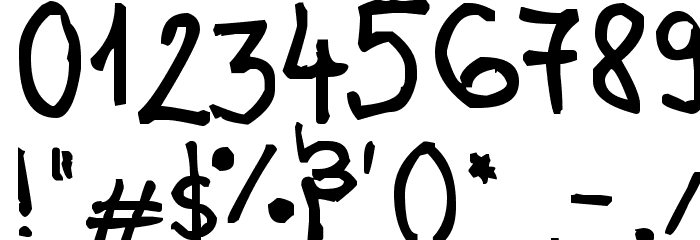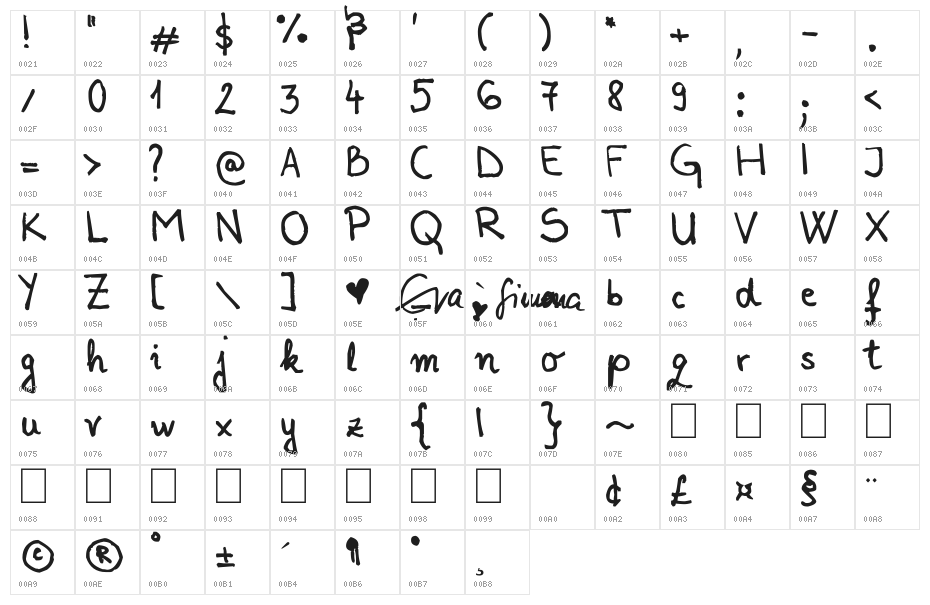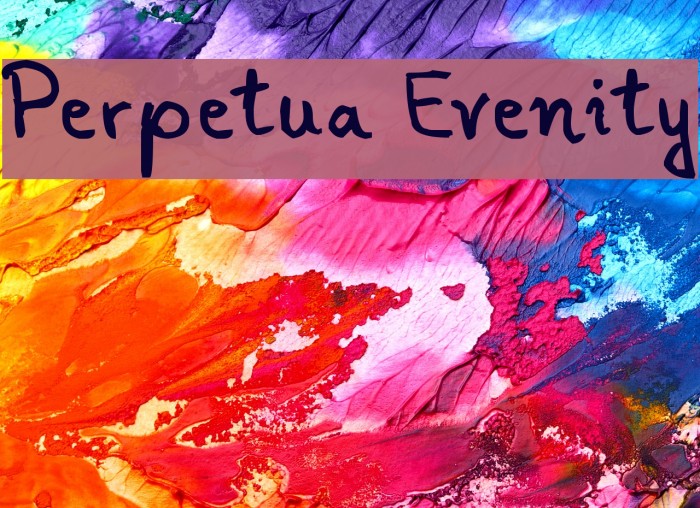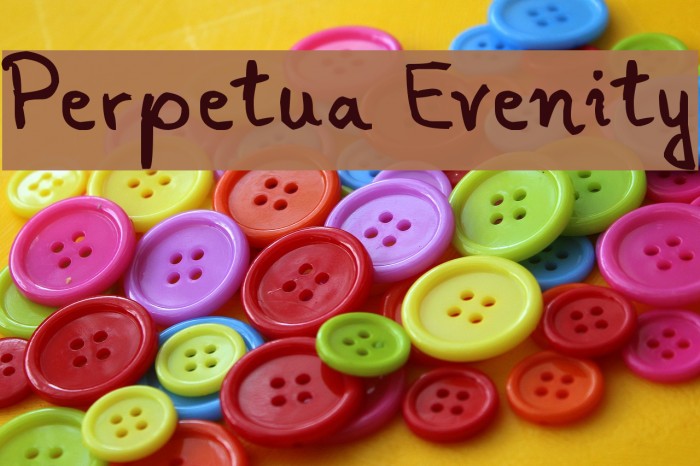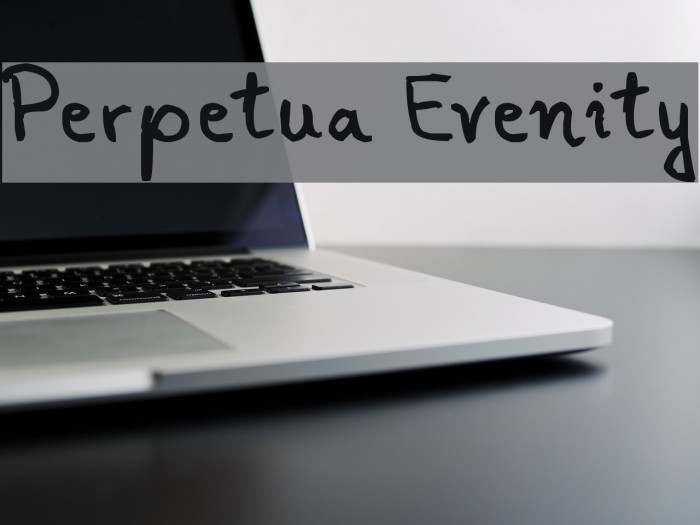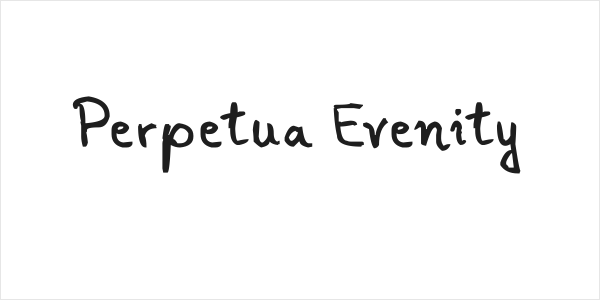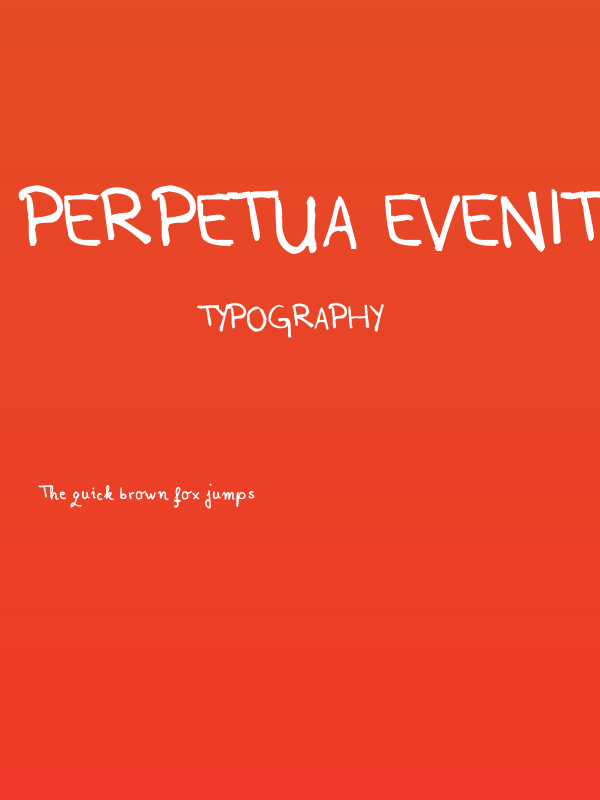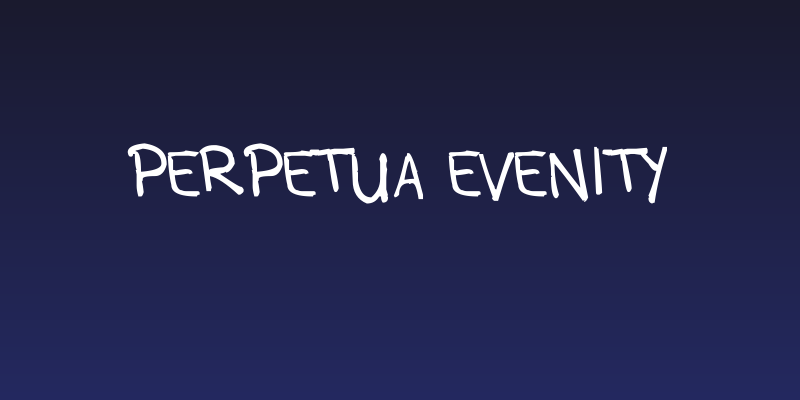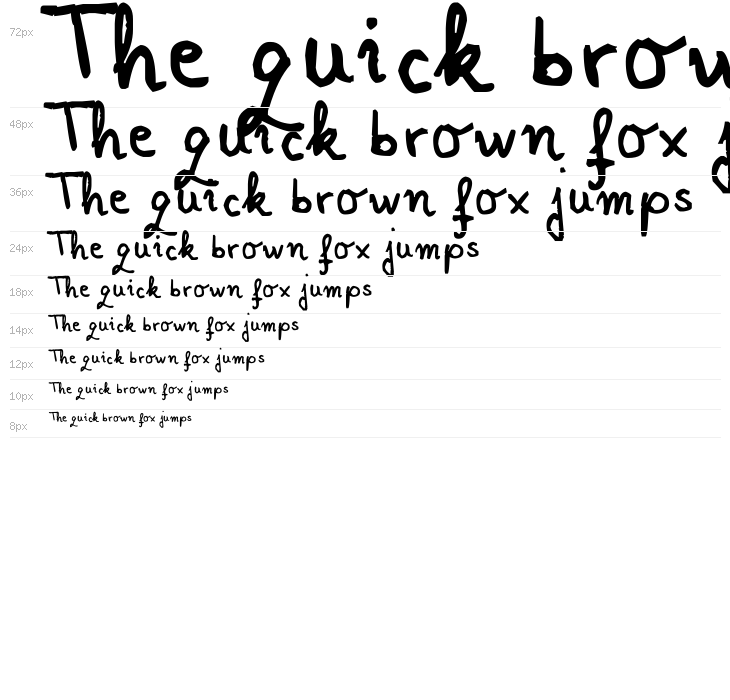
Perpetua Evenity Font
Perpetua Evenity Description
This font features a playful and informal handwritten style, characterized by its irregular strokes and casual appearance. The letters are slightly slanted, giving a dynamic and lively feel. The uppercase and lowercase letters maintain a consistent flow, while the numerals and special characters complement the overall aesthetic. The strokes vary in thickness, adding a touch of spontaneity and charm. This font is well-suited for projects that require a personal and approachable touch, such as invitations, greeting cards, or creative branding.
| Proposed Projects | Ideal for invitations, greeting cards, creative branding, and personal projects. |